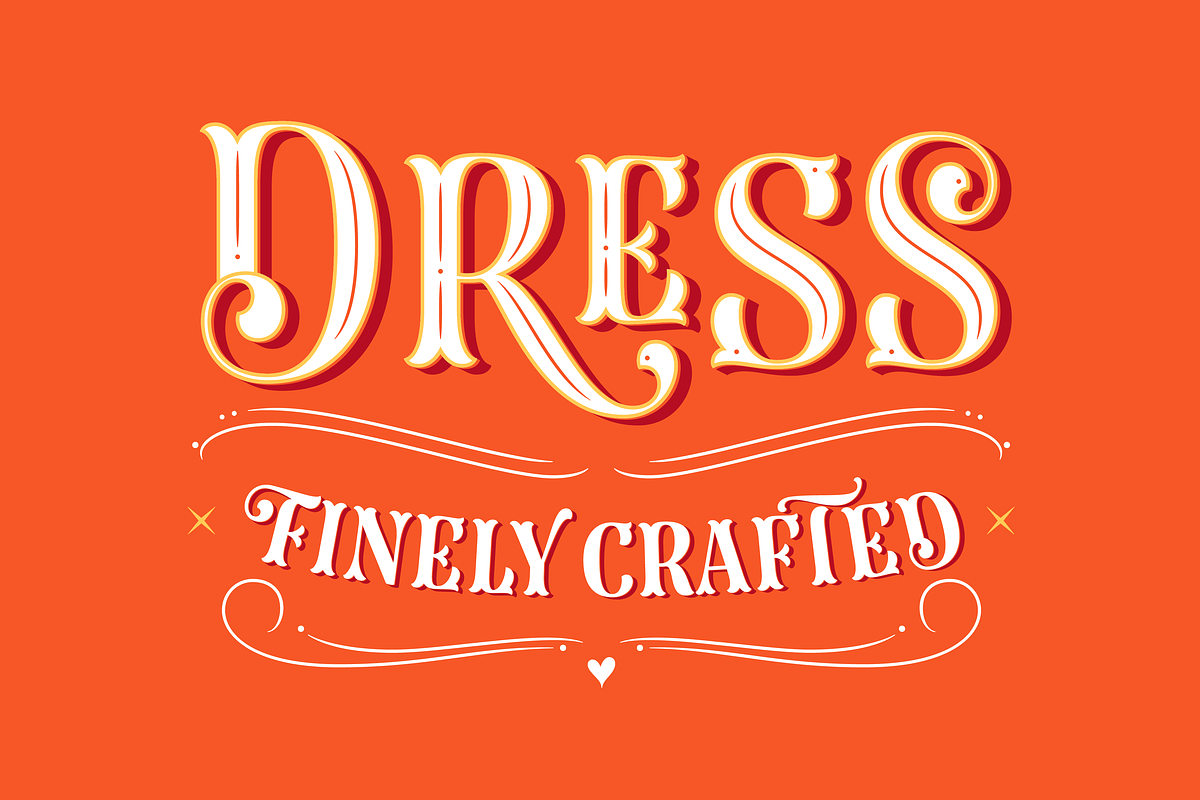
Dress Combo Two - Display Font Free Download
Dress Combo Two - Display Font Free Download is a vibrant and stylish typeface designed to make a bold statement. With its dynamic design, combining elements of both modern and retro styles, this font is perfect for headlines, posters, branding, and any project that needs a distinctive, eye-catching look.
The unique combination of clean, geometric shapes and playful letterforms makes it ideal for creative and fashion-forward designs. Whether you’re working on a fashion brand, event promotion, or any high-impact graphic design, Dress Combo Two adds personality and energy to your typography.